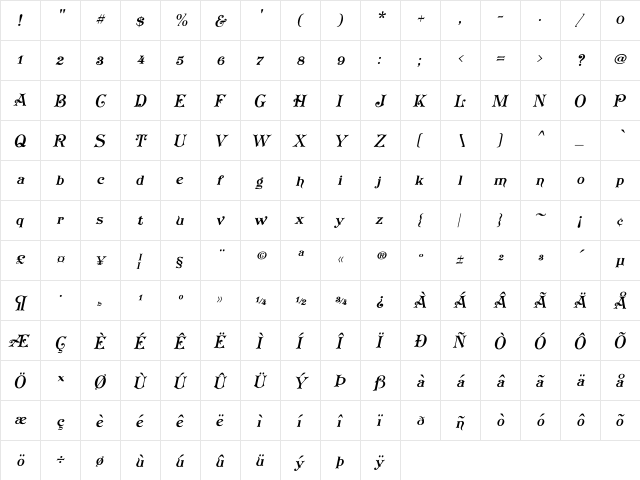
Koster Plain Oblique Regular
Design Context for Koster Plain Oblique Typeface
Koster Plain Oblique offers clean, dependable letterforms without strong stylistic allegiance, making it a practical choice for designers who need flexibility. The slanted form adds forward momentum and visual energy.
Pro Tip: Try Koster Plain Oblique for annotation and caption copy alongside an upright companion — the contrast in angle creates a dynamic but ordered typographic system.